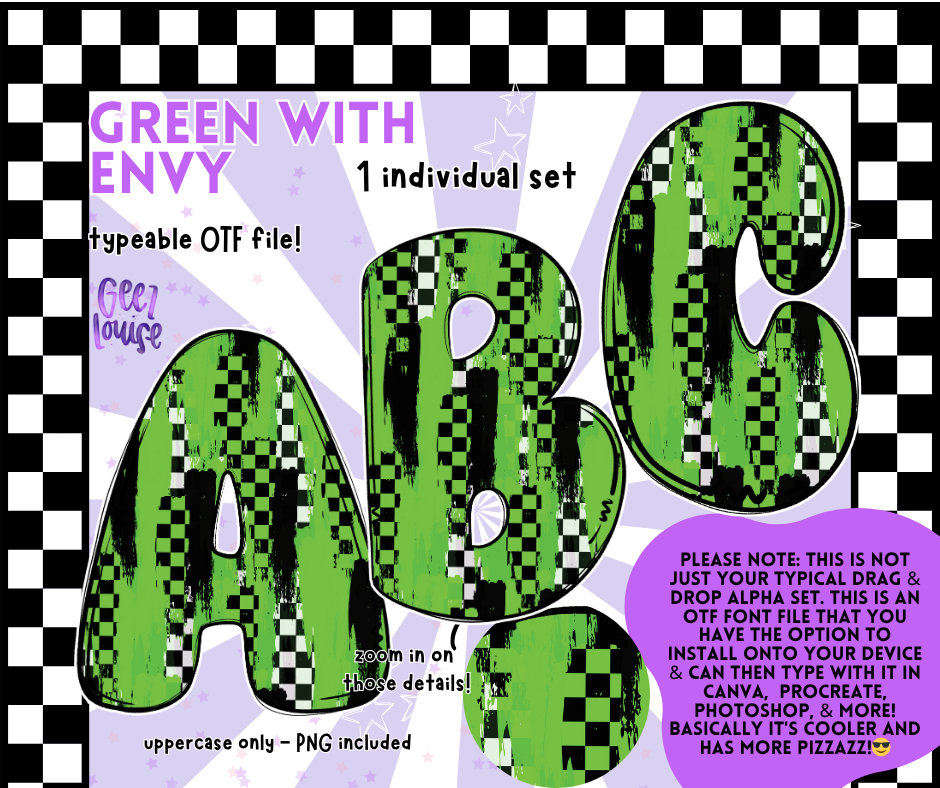
Green With Envy Alpha – Grunge Green Checkered OTF Font & PNG Set
💚♟ Make a bold statement with Green With Envy Alpha – a grungy, neon-green checkered design perfect for edgy, punk, and alternative projects.